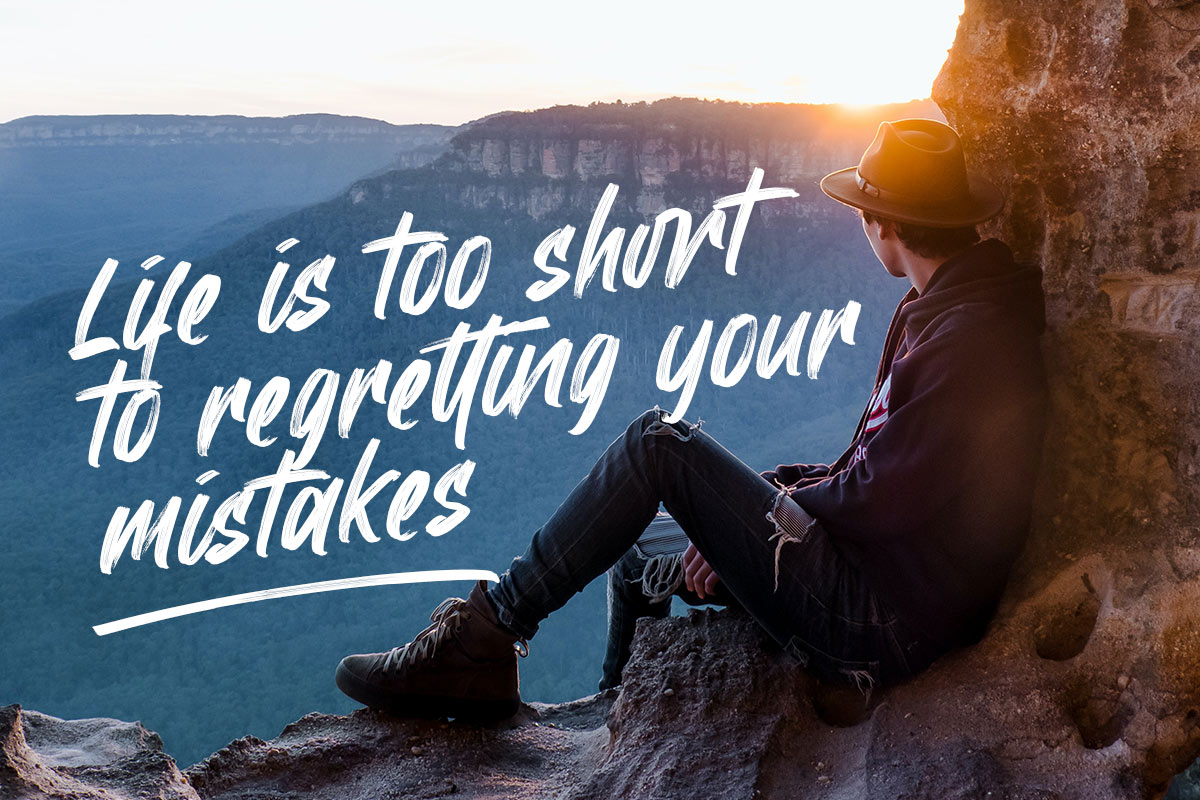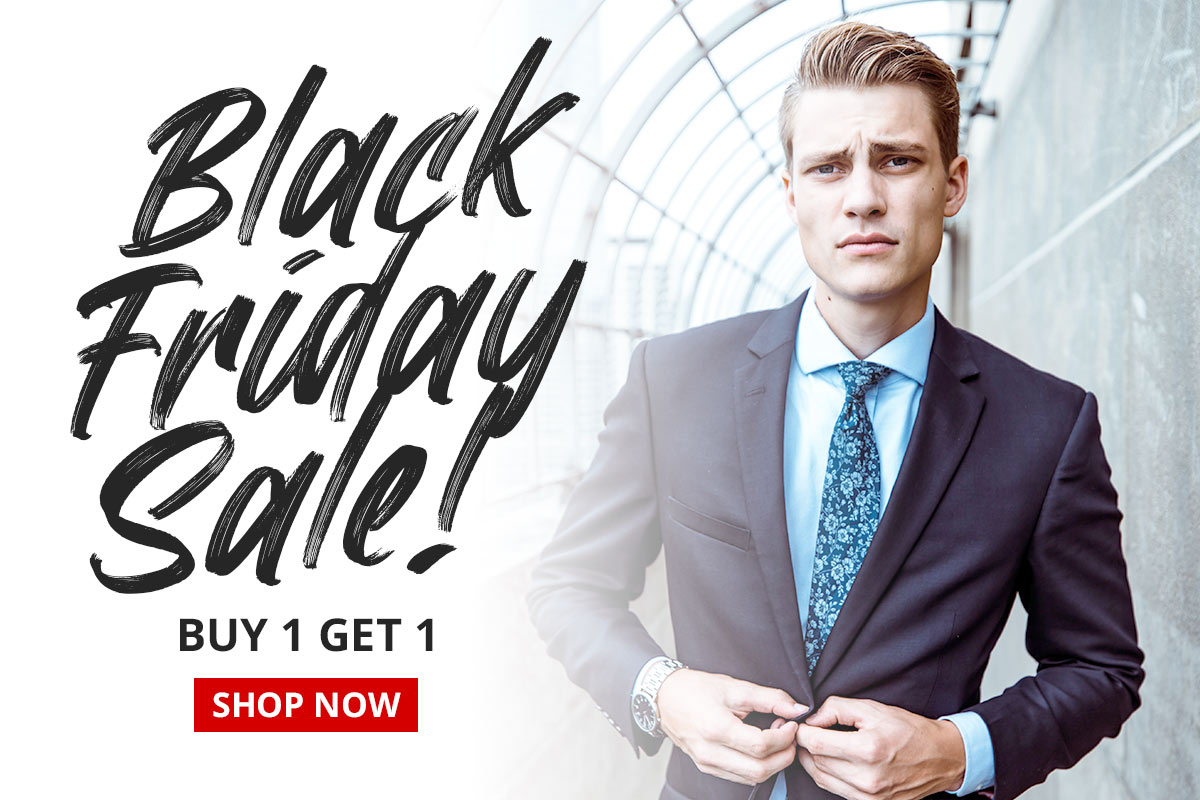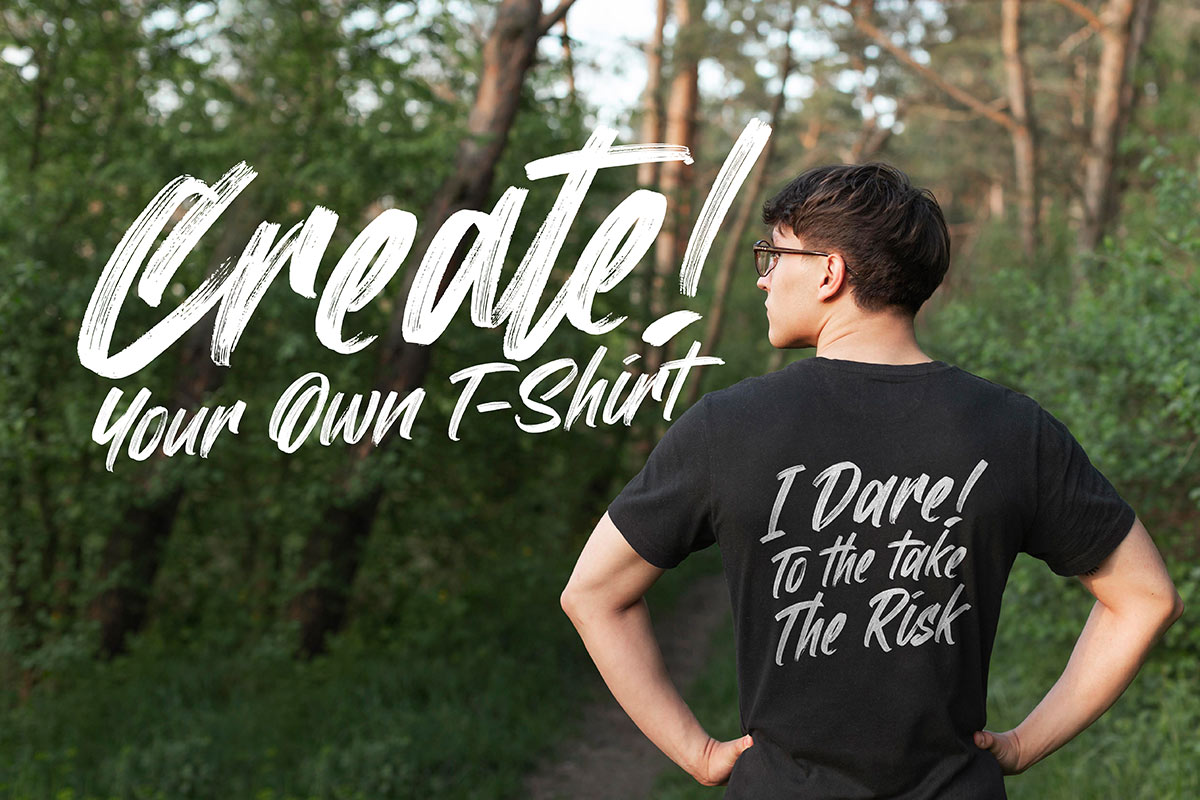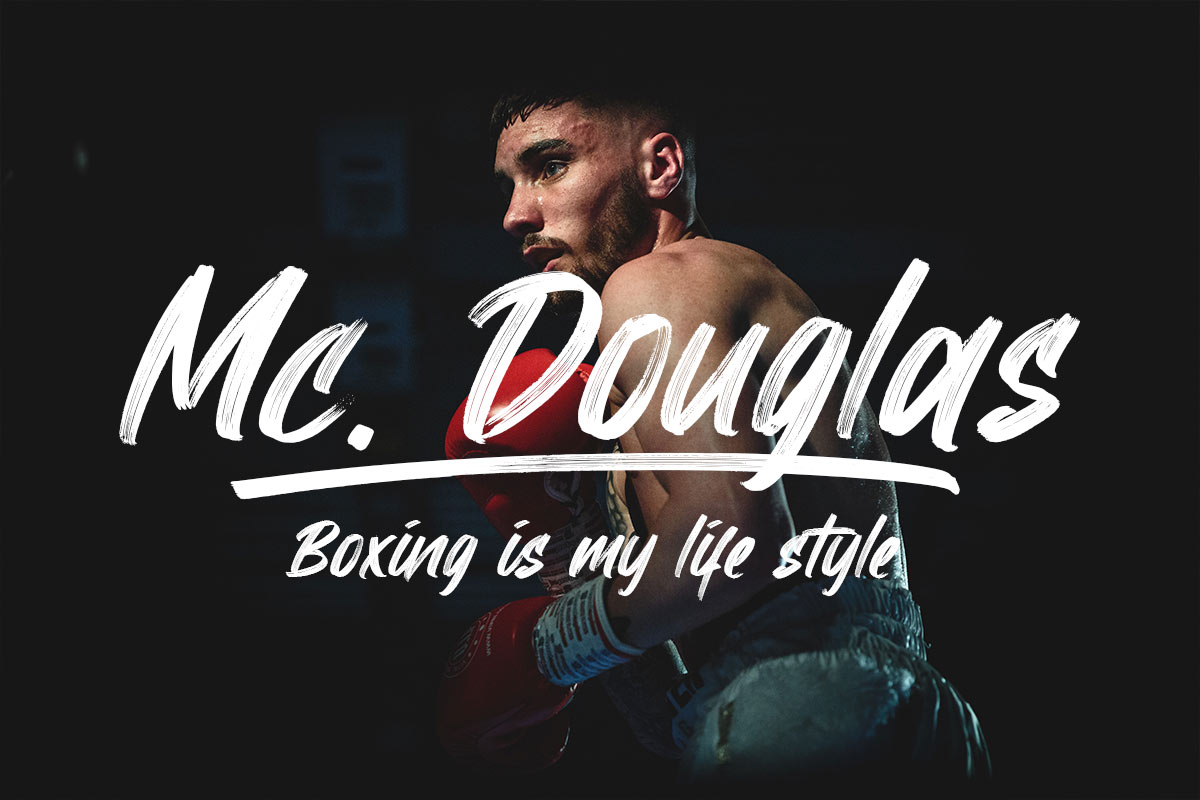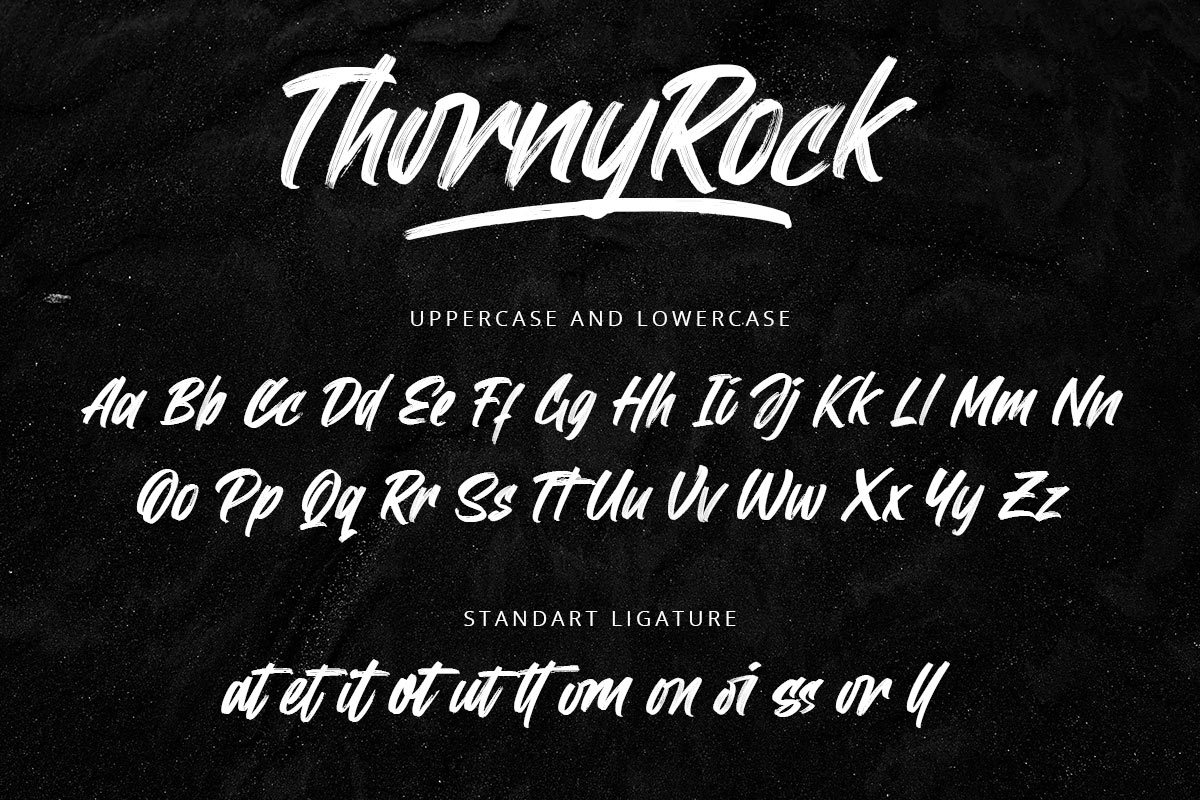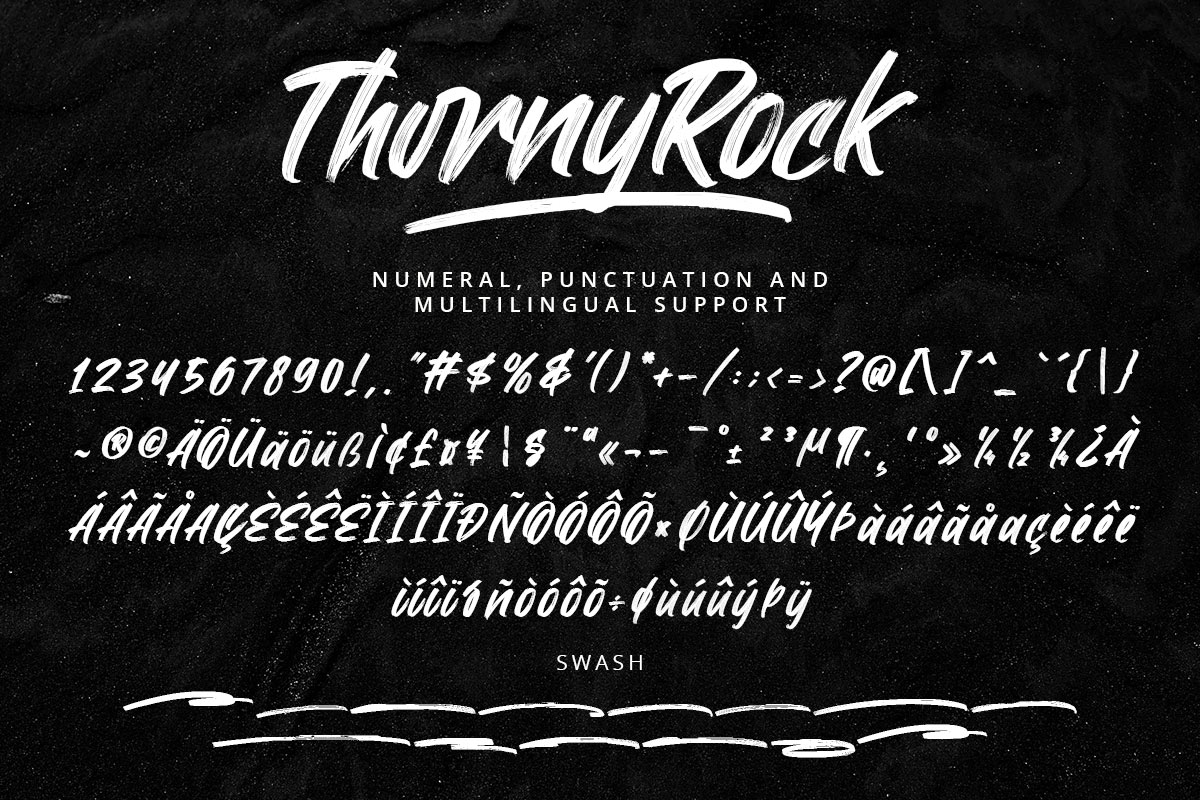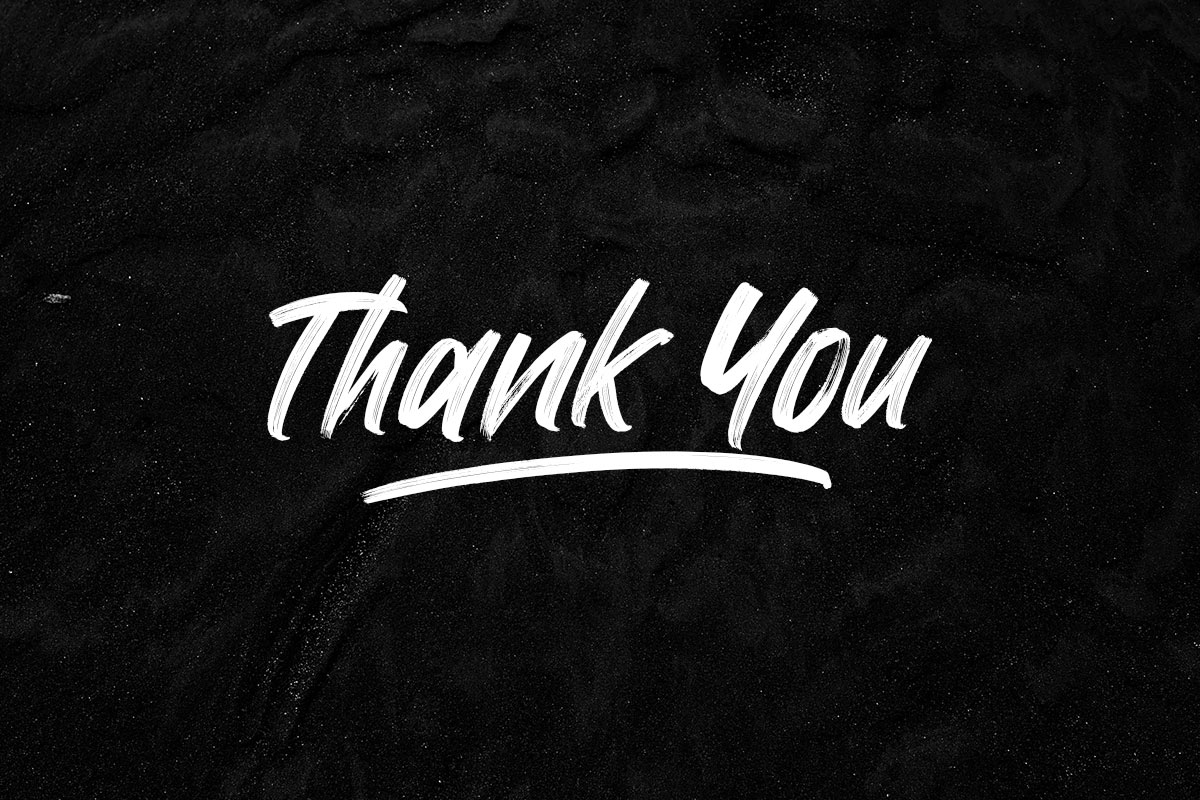
ThornyRock Handwritten Brush Font
So many font choices are provided by the font brush, one of which is the ThornyRock Handwritten Brush Font. This font is a good choice if you are looking for digital fonts or print fonts. You can see how the characteristics of this font are attractive to the eyes of anyone who reads it. ThornyRock Handwritten Brush Font is one of those aesthetic fonts formed from light brush strokes. This font is created with beautiful curves in some of the letters. On closer inspection, this font looks like a shadow that has a bold edge at the end of the font shape.
The characteristics of the ThornyRock Handwritten Brush Font above are very suitable for formal events that emphasize beauty. This font is the best font that can be used for wedding fonts such as invitations, souvenirs, and writing on decorations. ThornyRock Handwritten Brush Font is also one of the most suitable fonts to be used for product brands that answer women's needs, such as fashion and beauty products, as well as shop signs. These fonts can be digital fonts or print fonts. The ThornyRock Handwritten Brush Font is illegible.
ThornyRock Handwritten Brush Font was created with simplicity, elegance, and a strong aesthetic in everything that goes with it. This impression arises from how clear this font looks and its characteristics.
ThornyRock Handwritten Brush Font